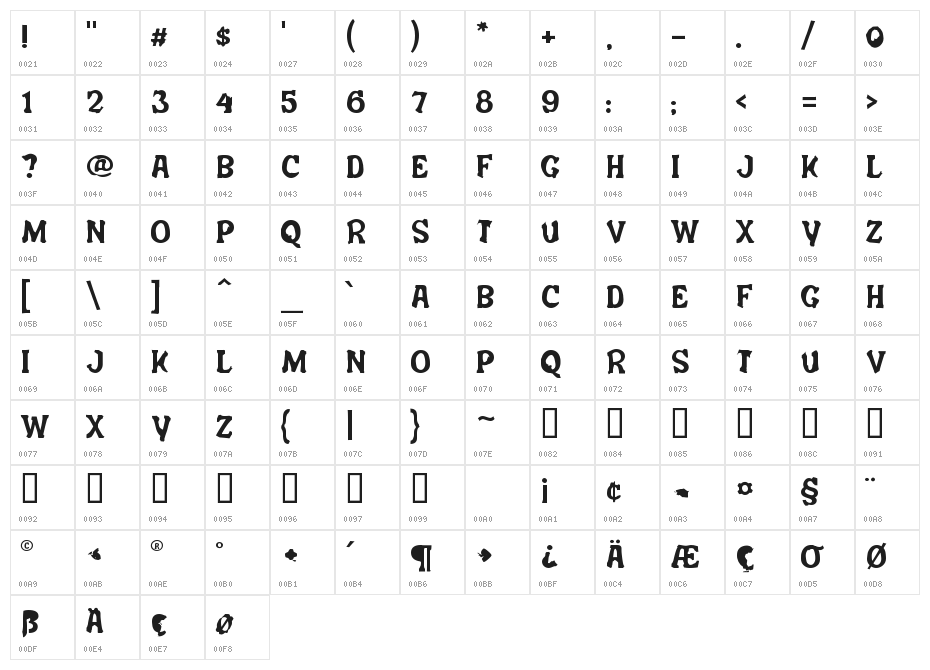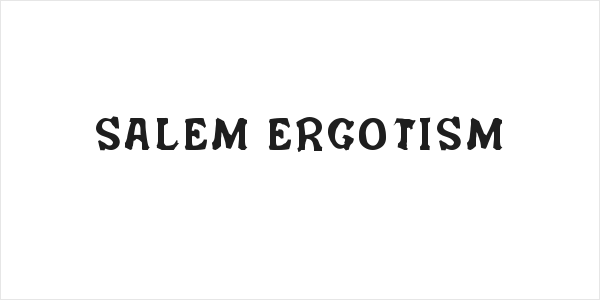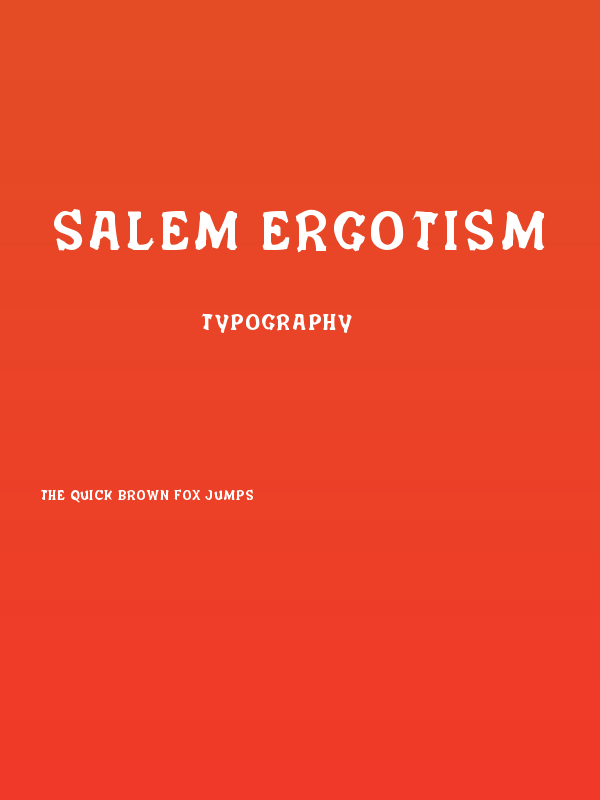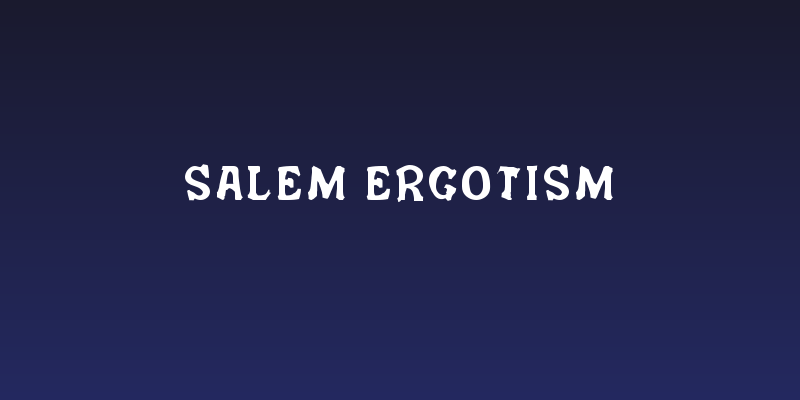
Salem Ergotism Font
Salem Ergotism Description
This font features a bold and dramatic style with a distinctly vintage and eerie aesthetic. The characters are heavily stylized with uneven edges and a slightly distressed look, reminiscent of old woodcut prints or historical documents. The uppercase letters are robust and commanding, while the lowercase letters maintain a consistent style, adding to the overall cohesive appearance. The numbers and special characters follow the same design principles, ensuring uniformity across all elements. This font is ideal for creating a sense of mystery or historical intrigue, making it perfect for themed projects or designs that require a touch of the macabre.
| Overall Style | Vintage, Decorative |
| Proposed Projects | Ideal for horror-themed posters, historical event flyers, book covers, or any design requiring a vintage or mysterious touch. |